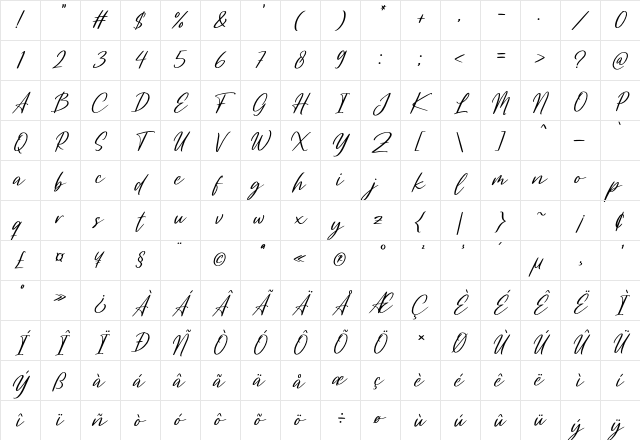
Gillimore Regular
Foundry: Hendra Pratama
Designer: Hendra Pratama
Design Context for Gillimore
Gillimore is a composed and adaptable typeface that performs quietly and consistently across a wide range of design contexts.